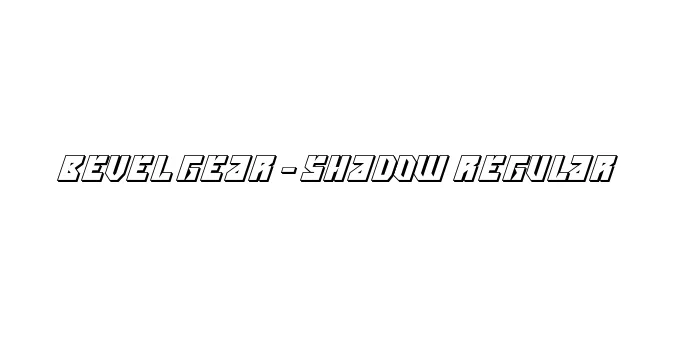
Bevel Gear - Shadow Regular
Designed by Dan Zadorozny (Iconian Fonts)
| Font Name | Bevel Gear - Shadow |
| Category | Display / Techno |
| Designer | Dan Zadorozny (Iconian Fonts) |
| Similar Fonts | Mechanical, Impact, Ethnocentric, Gunplay |
Bevel Gear - Shadow Regular is a powerful, industrial-inspired display typeface designed to communicate strength, precision, and mechanical engineering. Part of a comprehensive font family, this variant features hard-edged geometric constructions combined with a distinct drop-shadow effect that provides a sense of three-dimensional depth. Its bold proportions and chamfered corners make it a standout choice for projects that require a high-impact, masculine aesthetic.
Created by Iconian Fonts, this typeface has become a staple for designers looking to replicate automotive, sci-fi, or heavy-duty machinery themes. The shadow effect is specifically engineered to maintain legibility even at large scales, ensuring that the Bevel Gear aesthetic remains clear while adding a layer of visual complexity that standard flat fonts lack. It is particularly effective when used in high-contrast color schemes, such as metallic or neon gradients.
Bevel Gear - Shadow Regular Best Uses
Perfect for creating strong, engineering-focused brand identities.
Excellent for title screens and UI elements in sci-fi or racing genres.
Ideal for car decals, workshop signage, and performance part branding.
Highly effective for high-impact event posters and action movie titles.